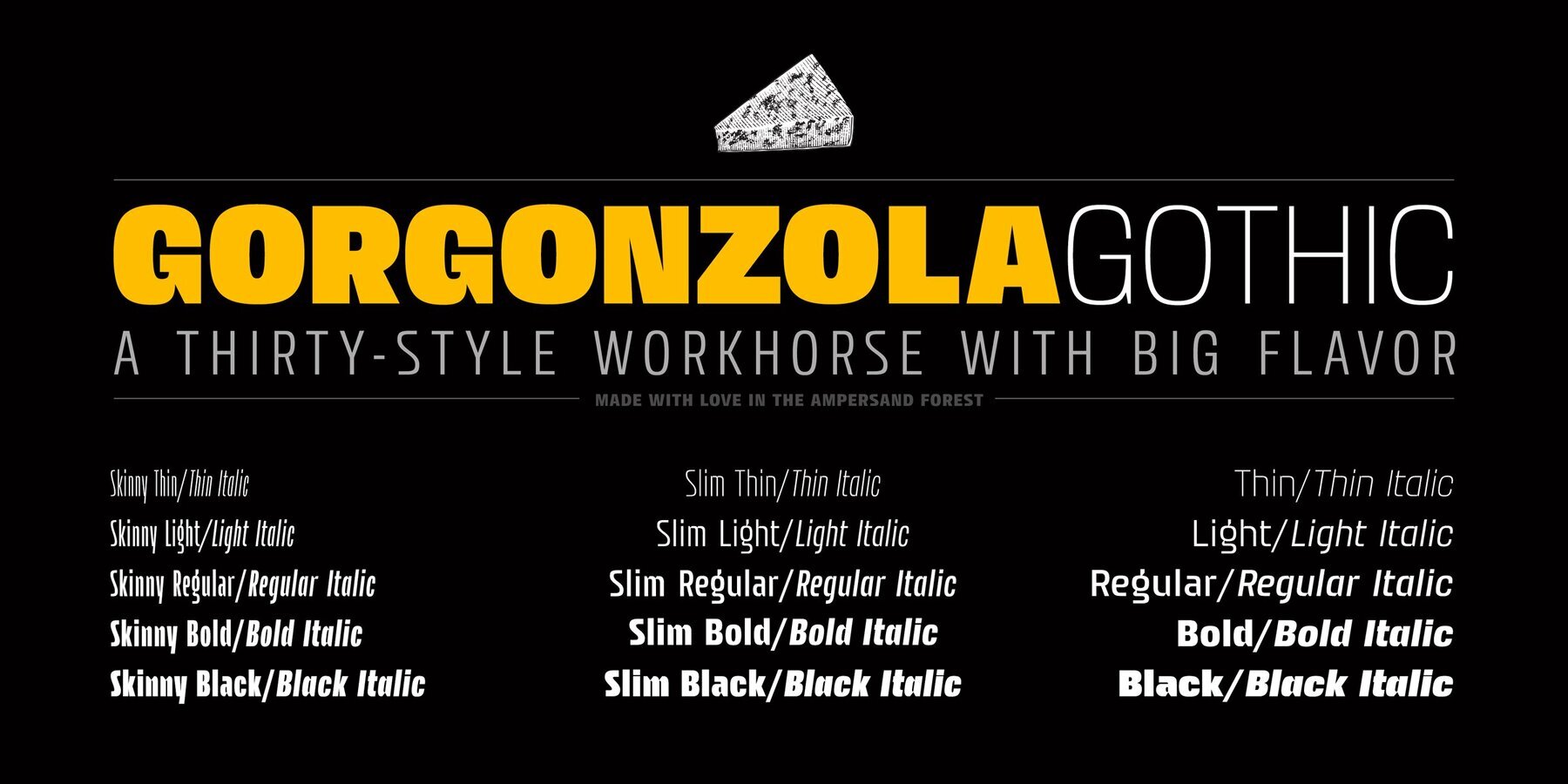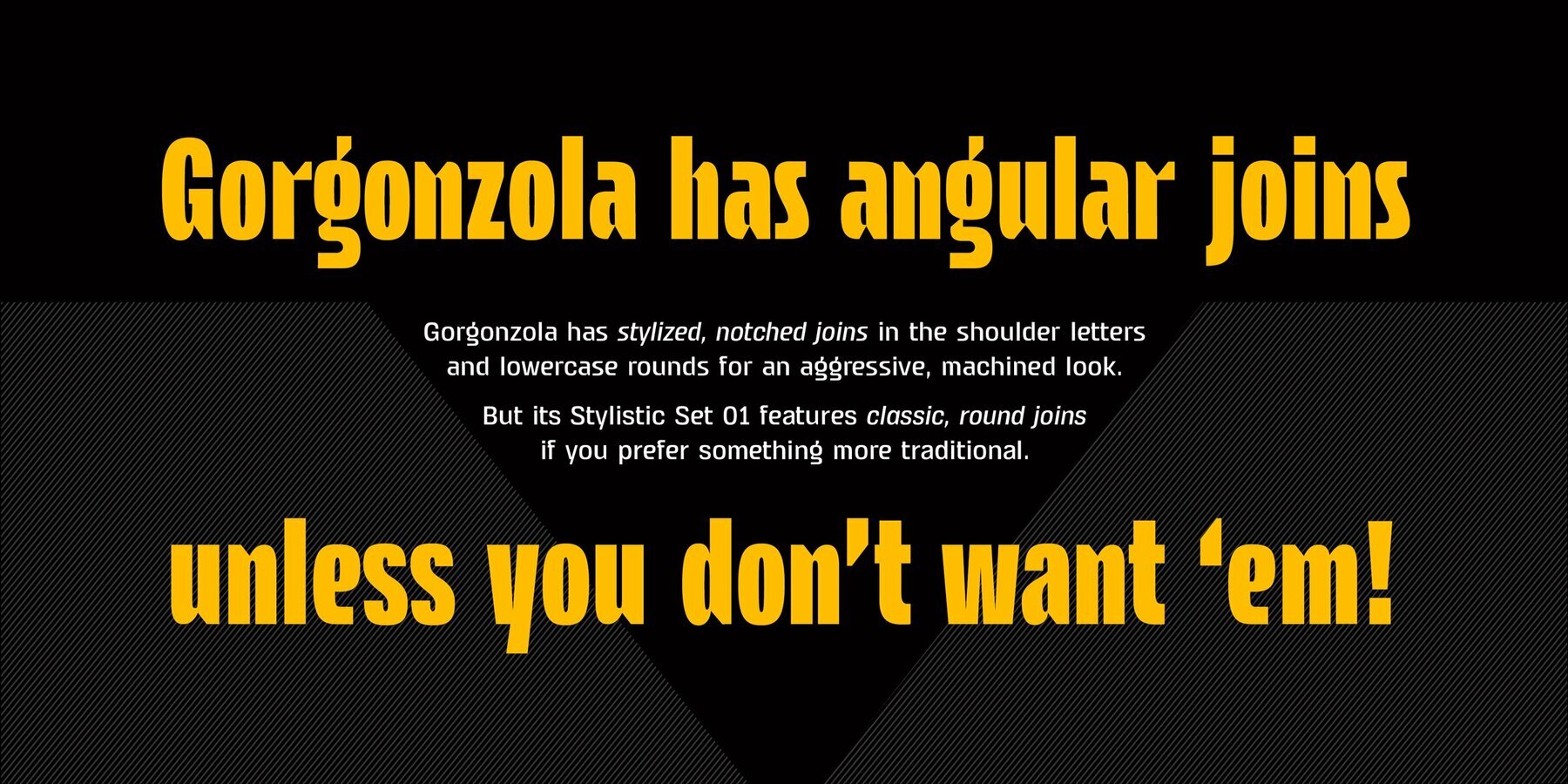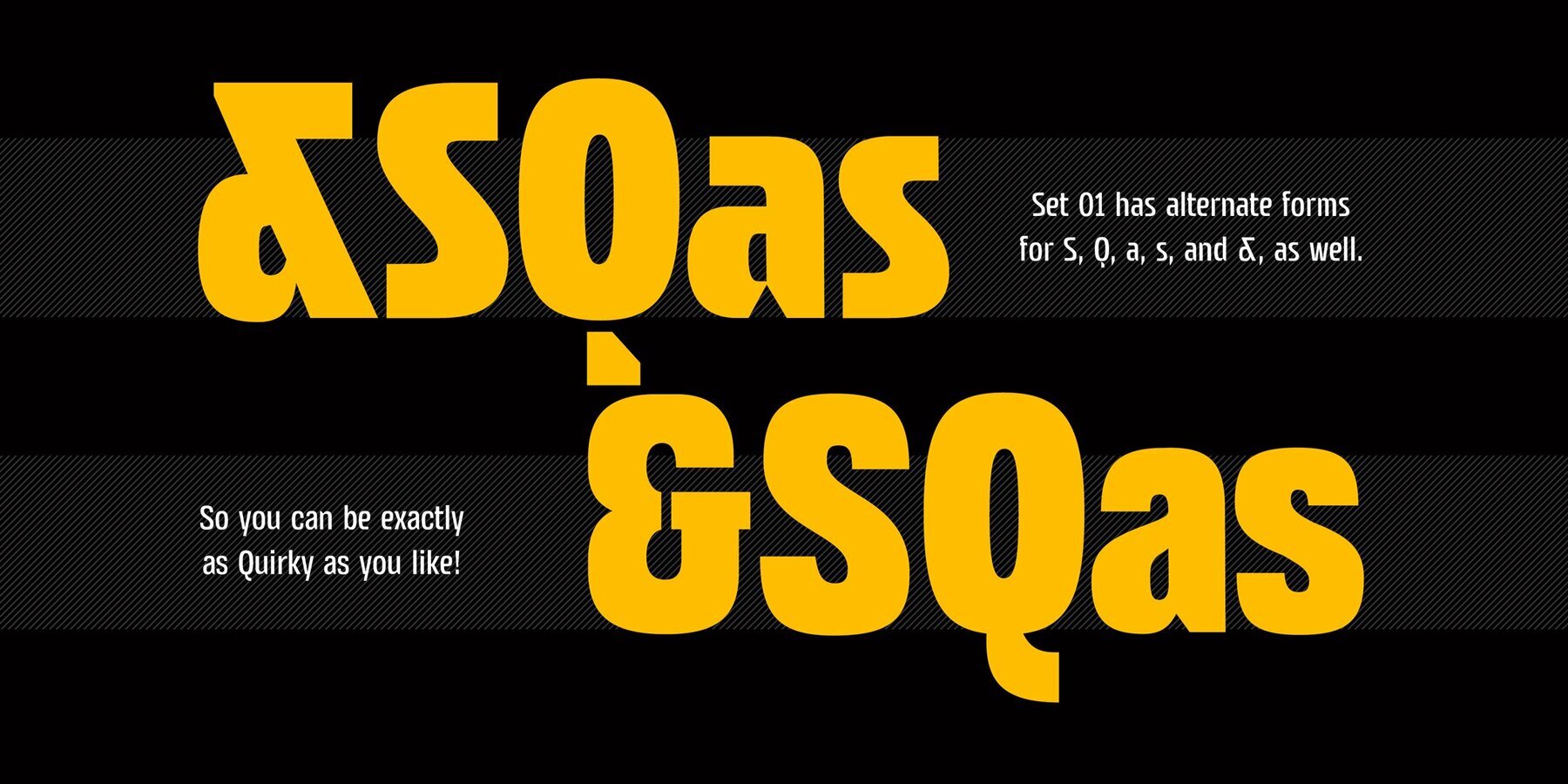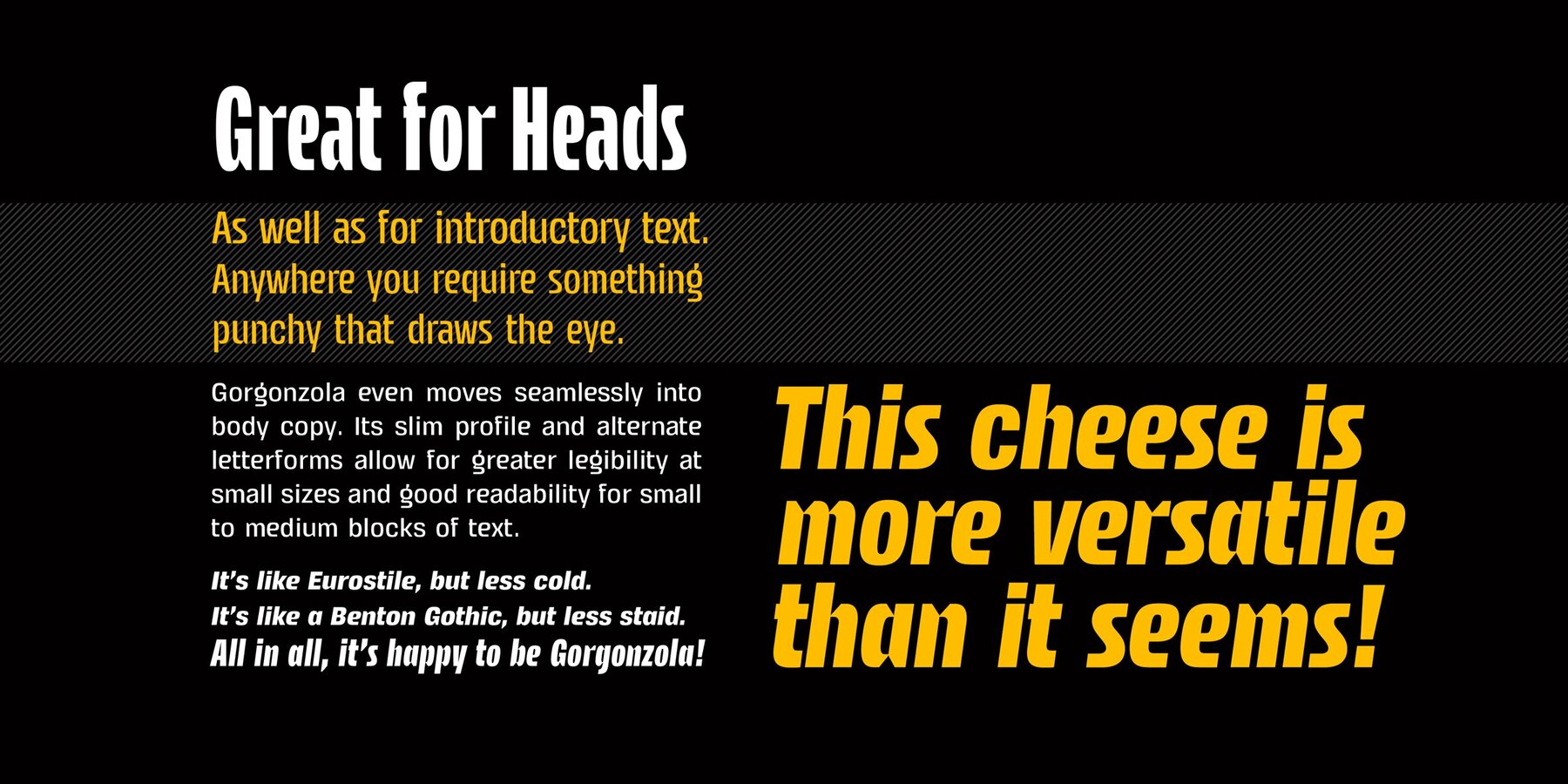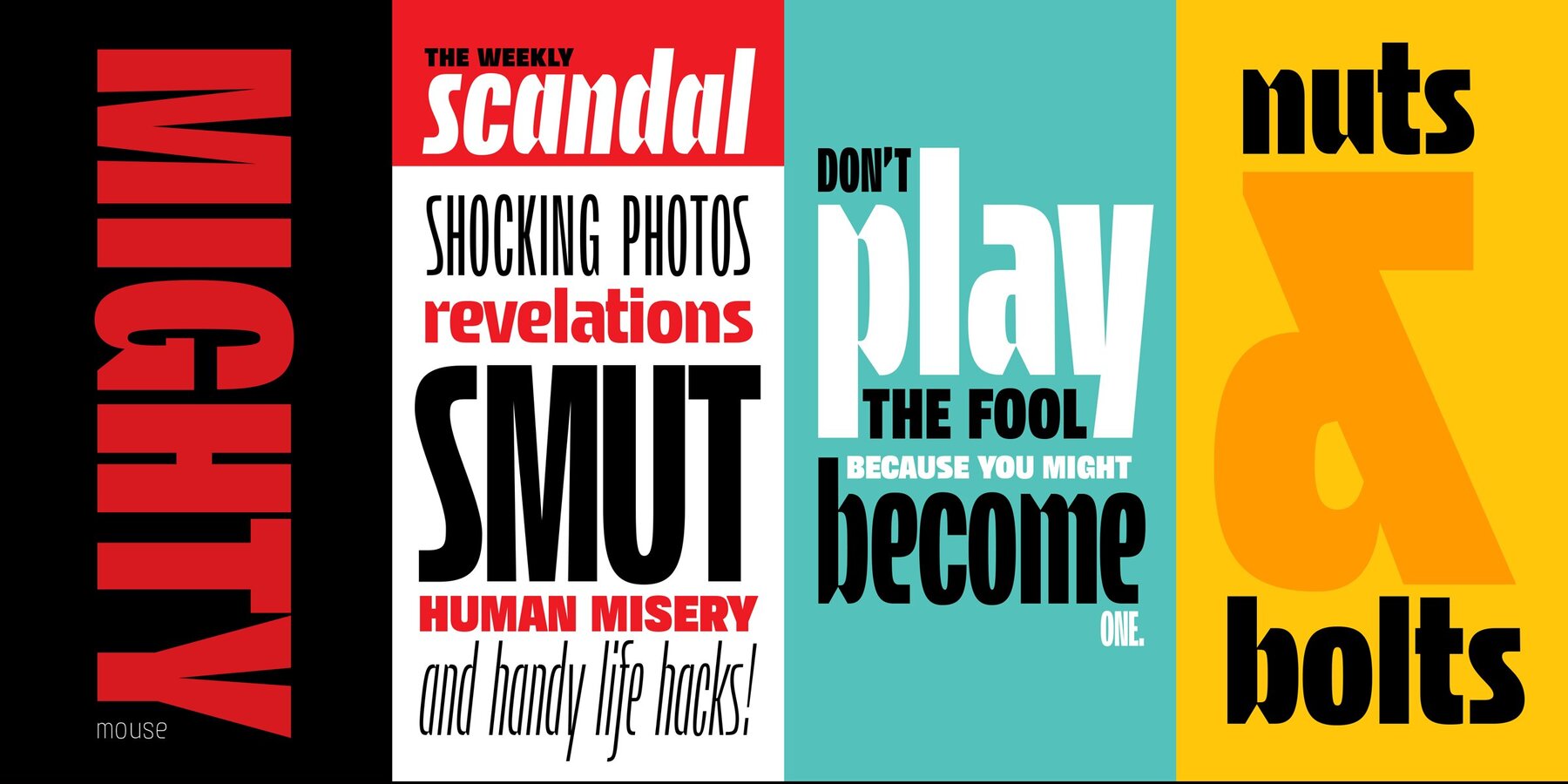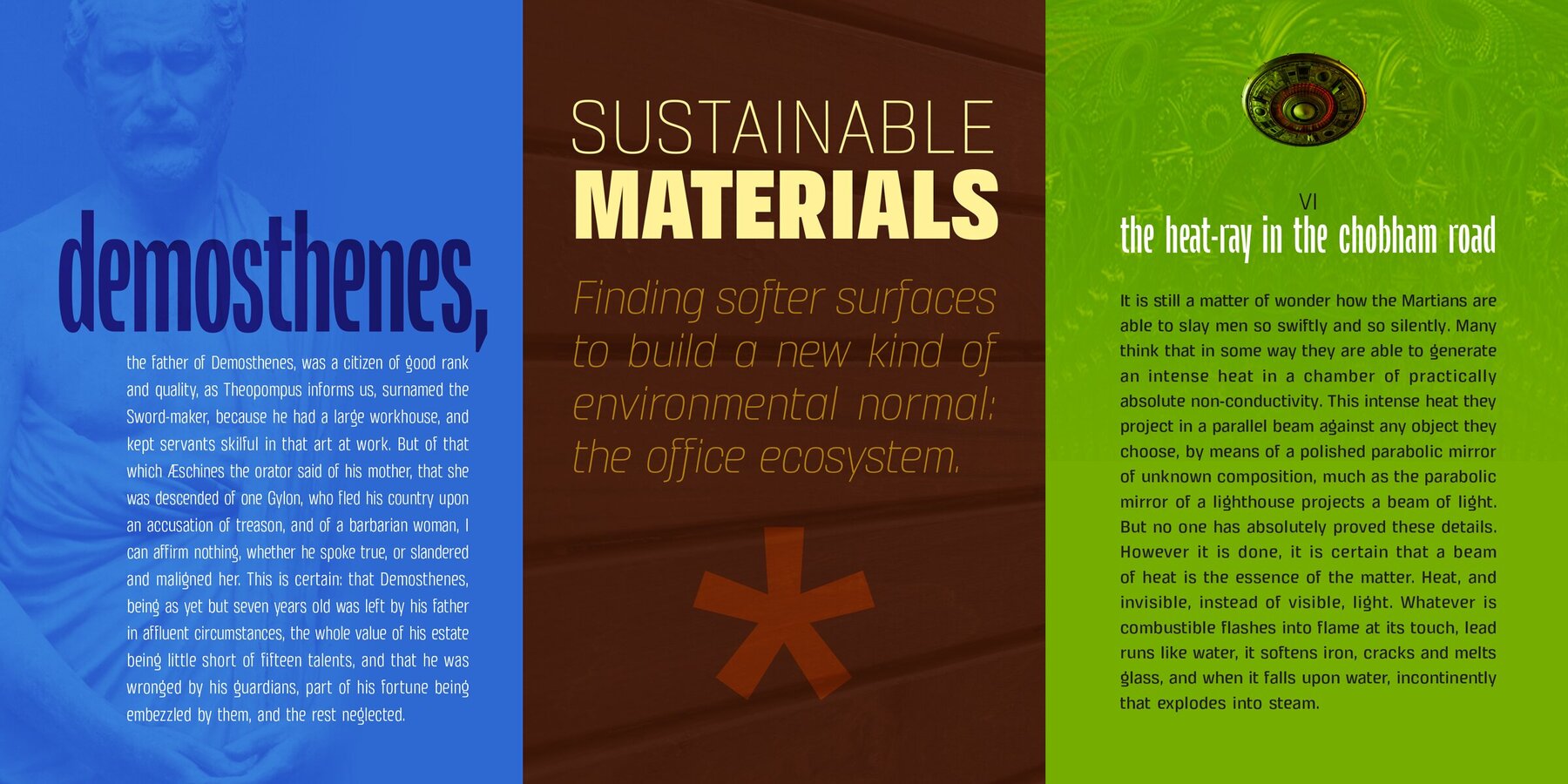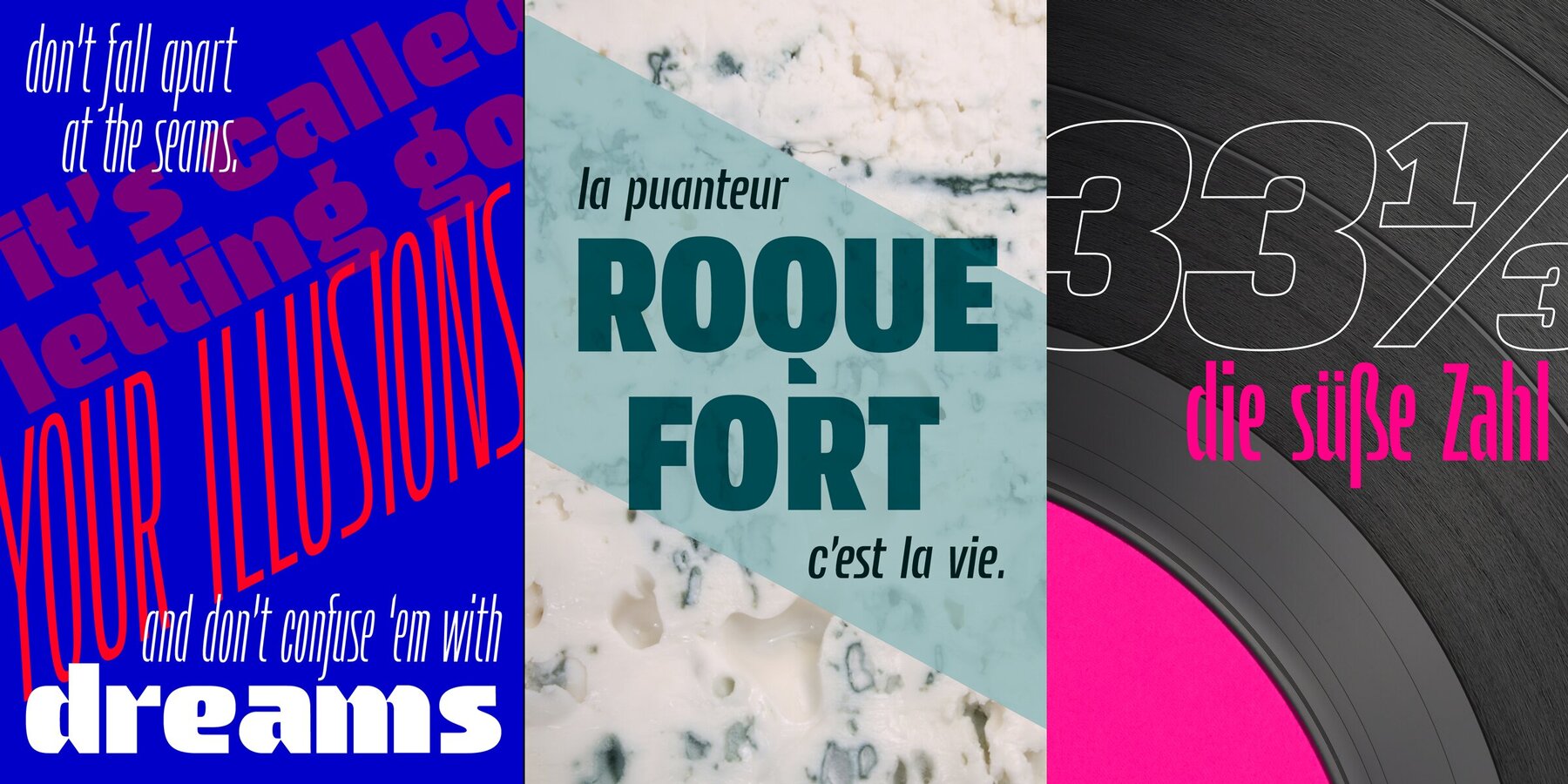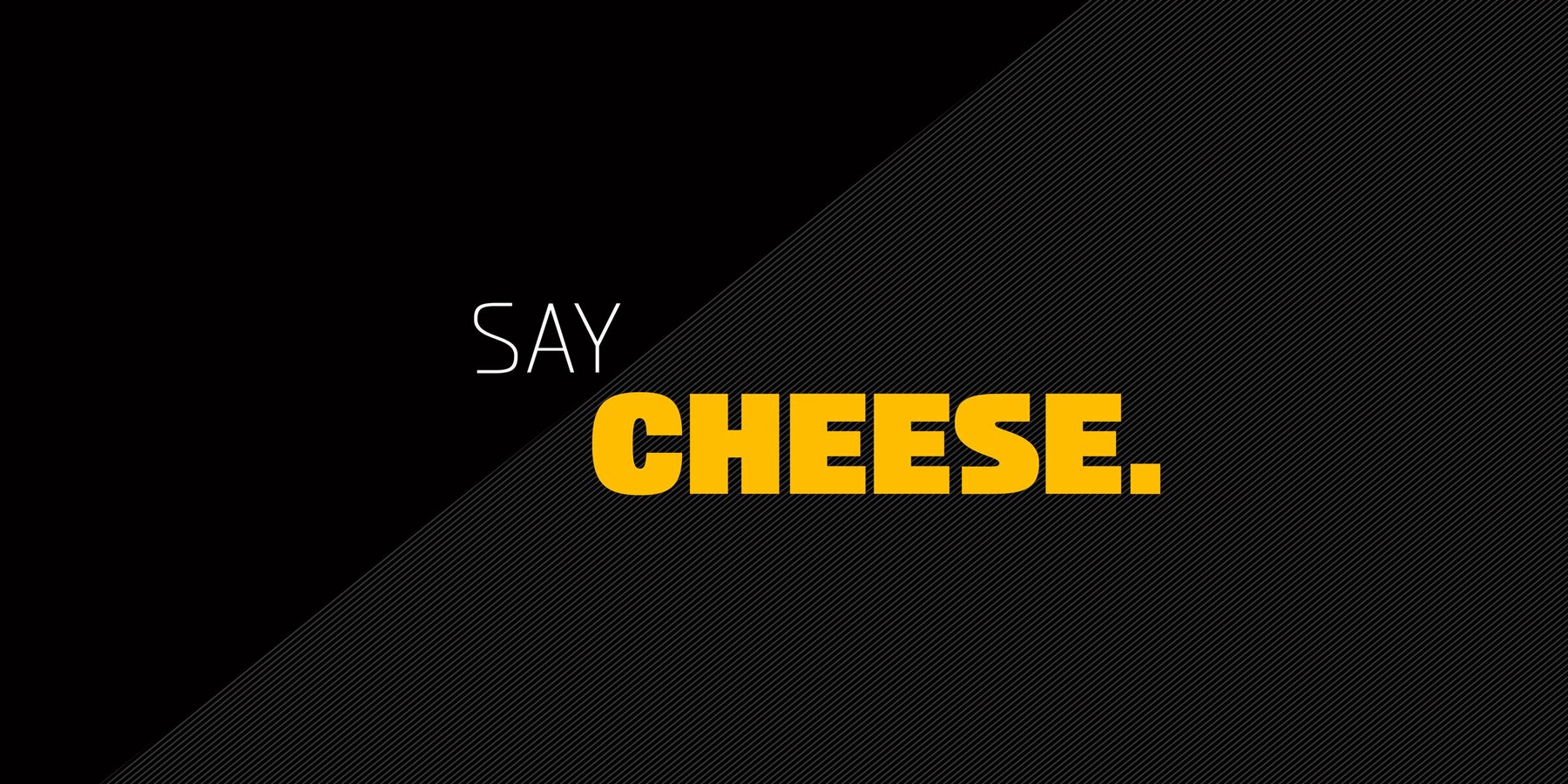
Gorgonzola Gothic Font
Gorgonzola Gothic is a geometrically-inspired gothic sans serif family that's robust and versatile—a thirty-style family that works for everything from branding to
offers two options in the round and shouldered lowercase glyphs.
The standard letterforms, like IxD, have notched joins, giving them an assertive, almost futuristic look. The alternates of those letterforms (housed in Stylistic Set 01, and available as immediate hoverable glyph options in the Adobe Suite) are more conventional (as are the SS01 ampersand, Q, S, a, and s).
In this way, Gorgonzola Gothic offers the best of both worlds: a flavorful, slightly futuristic family (in the same world as geometric classics like Eurostile) and a workhorse gothic sans (like the Benton classics Franklin Gothic, News Gothic, etc.). Its three widths: Skinny, Slim, and Standard, give it a wide range of applications, from display to body.